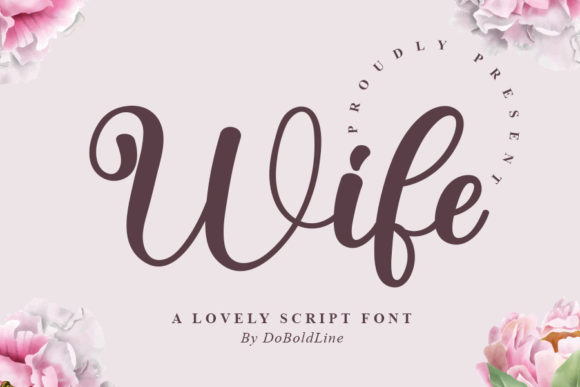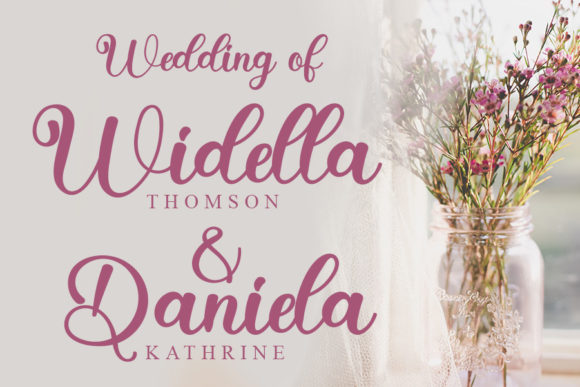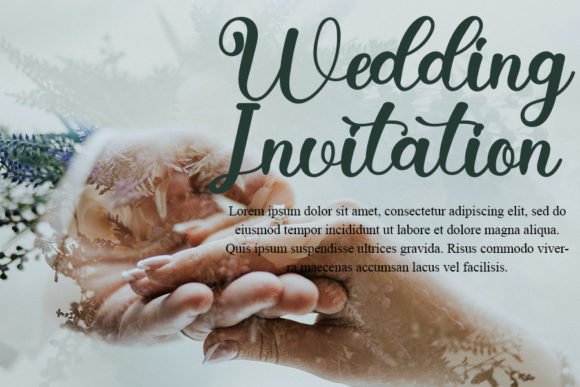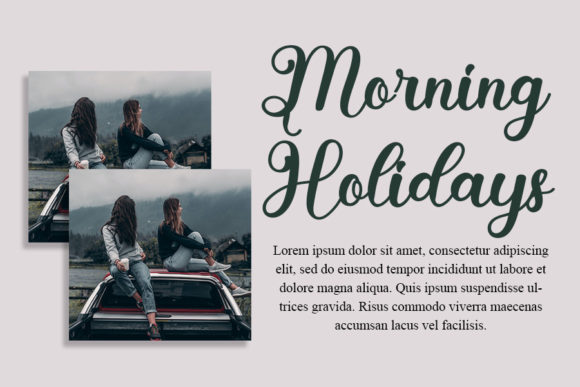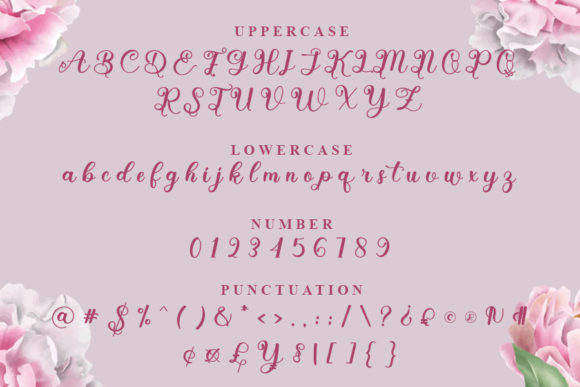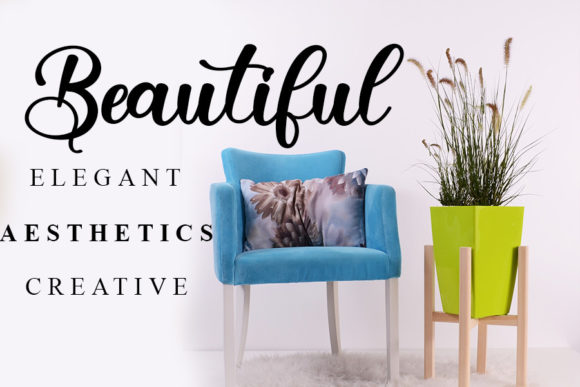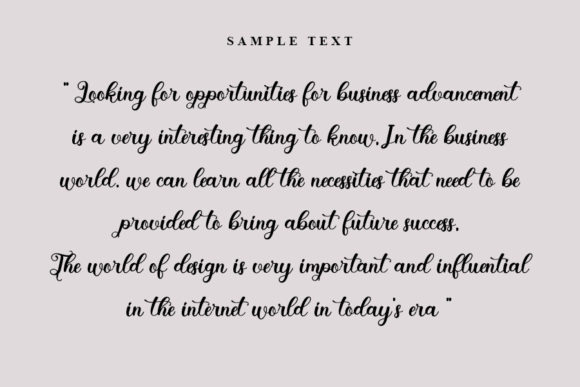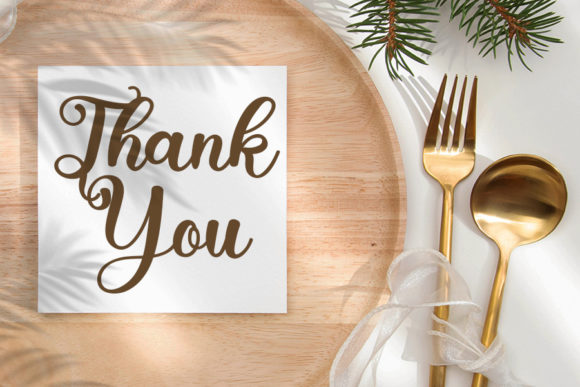
Wife Font
About Wife Font
“Wife” is not just a font; it’s a stylish, handwritten script that exudes a contemporary atmosphere while maintaining impeccable form. Drawing inspiration from timeless classic calligraphy, this font strikes a perfect balance between elegance and modernity, adding a touch of sophistication to your projects.
The design of “Wife” is a testament to meticulous craftsmanship, with each character thoughtfully crafted to enhance the overall beauty of your creations. The script’s handwritten nature brings a personalized and human touch, making it ideal for projects that demand a sense of warmth and individuality.
What sets “Wife” apart is its versatility. The font adapts seamlessly to various design contexts, making it suitable for a wide range of applications. Whether you’re working on invitations, greeting cards, branding, or any other creative project, “Wife” adds a distinctive flair that elevates the visual appeal.
The varied strokes and carefully considered letterforms contribute to the overall harmony of the font. This variation not only ensures legibility but also introduces a dynamic and engaging rhythm to the text. The result is a font that captures attention and leaves a lasting impression on your audience.
“Wife” is designed to be more than just a typeface; it’s a tool that empowers you to express your creativity with confidence. Its contemporary yet timeless aesthetics make it a valuable asset for projects that demand a perfect blend of tradition and modernity.
Immerse yourself in the world of “Wife,” where each stroke tells a story and every curve resonates with a sense of style. Whether you’re a designer looking for a go-to script font or someone embarking on a personal project, “Wife” is here to complement your vision and bring it to life with its unique charm and sophistication. Elevate your designs, evoke emotion, and make a statement with “Wife,” the handwritten font that transcends the ordinary and adds a touch of timeless beauty to your creative endeavors.